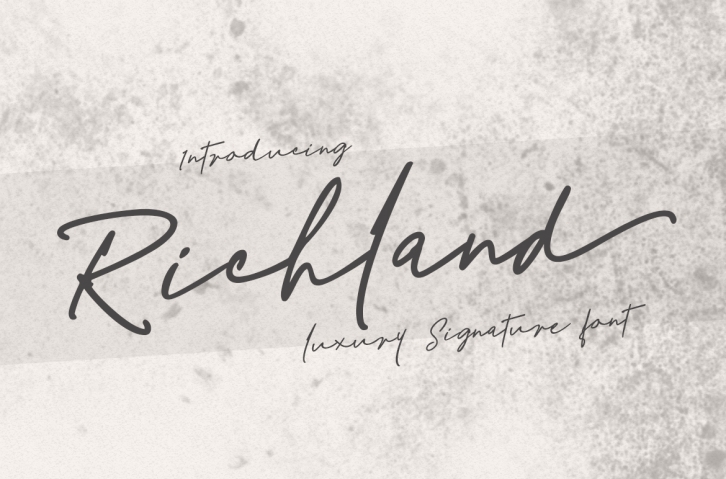
Richland is a gorgeous font that was realeased on February 27, 2019. The font can be used in many style contexts and design environments. Perfect for invitations, magazines, websites, logos, and more! It was designed by MrLetters and the file size is 4.75 MB. Thanks for checking out this font!